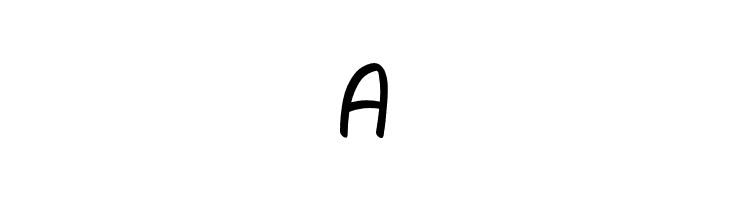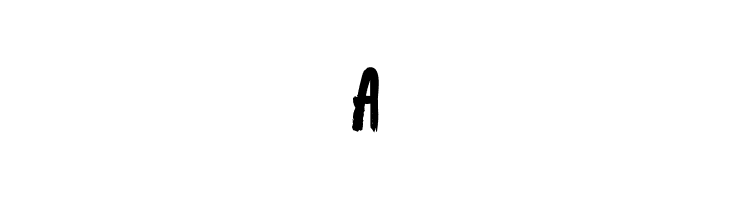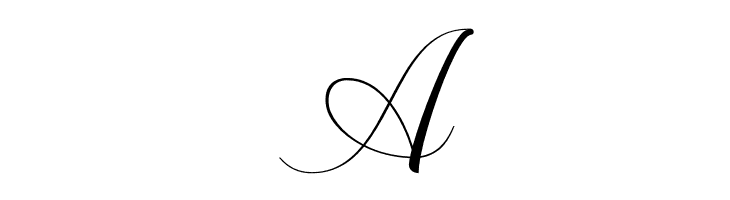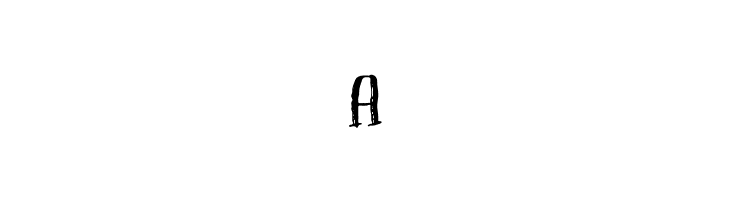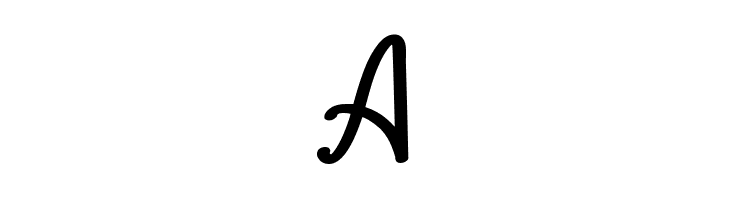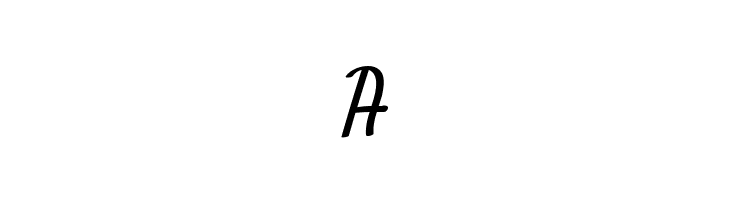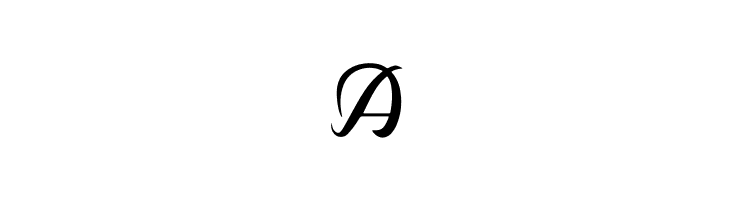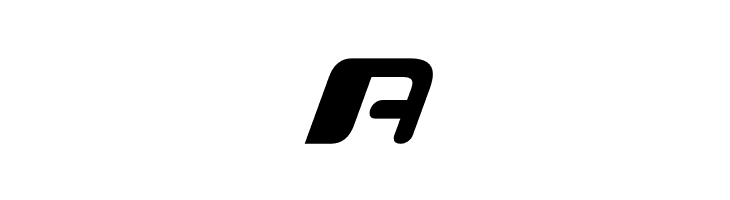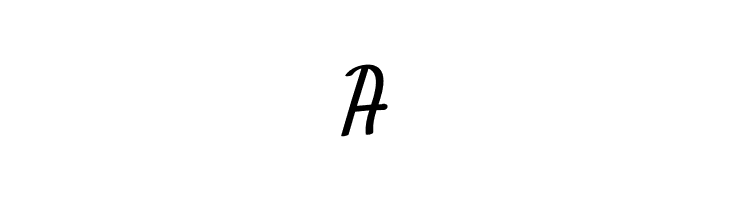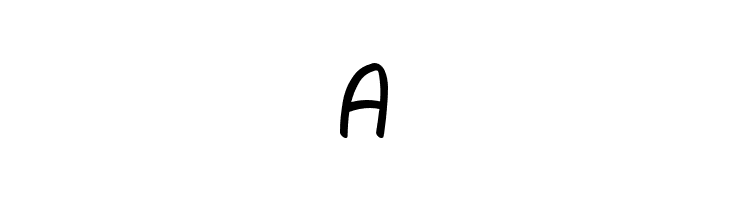
A modern, elegant script font with flowing, cursive letterforms and decorative swashes.
An elegant script font with flowing, cursive letterforms and high contrast strokes.
An elegant, cursive script font with smooth, flowing characters.
An elegant, flowing script font with a sophisticated style.
A dynamic and elegant script font with flowing curves and smooth connections.
A bold, brush-style font with a handcrafted, textured appearance.
A bold, brush-style font with a hand-painted look, perfect for creative projects.
An elegant, flowing script font with a handwritten style.
A sophisticated calligraphy font with elegant, flowing strokes and decorative flourishes.
A bold, Gothic-inspired font with sharp serifs and dramatic styling.
A cursive, elegant font with a handwritten appearance and smooth, connected letters.
A dynamic and fluid script font with elegant, flowing letterforms.
A bold, geometric font with a futuristic, digital aesthetic.
A geometric, angular font with a futuristic and technical style.
A bold, brush-style font with a hand-drawn, artistic look.
A playful, rounded font with smooth curves and consistent stroke width.
A bold, futuristic font with a dynamic slant and geometric structure.
A playful, handwritten font with a casual and approachable style.
A playful, handwritten-style font with bold, rounded characters.
A playful, handwritten-style font with flowing, cursive-like strokes.
An elegant script font with fluid, cursive strokes and sophisticated flourishes.
A bold, playful font with chunky, irregular shapes for a whimsical touch.
A bold, playful font with a graffiti-inspired style.
A bold, playful font with thick, rounded characters and a cartoonish style.
A bold, modern font with geometric, angular characters.
A sleek, modern italic font with a geometric and dynamic style.
A modern, geometric font with bold, clean lines and a slightly condensed style.
A classic serif font with elegant strokes and clear numerals.
An elegant italic serif font with a classic and sophisticated style.
A cursive-inspired font with elegant, flowing strokes and calligraphic flair.
An elegant script font with calligraphic influences and graceful curves.
A playful, handwritten font with whimsical details and dynamic strokes.
A bold, futuristic font with geometric shapes and sharp angles.
An angular, decorative font inspired by ancient scripts with sharp, geometric shapes.